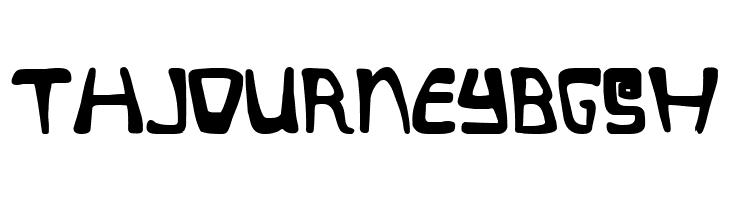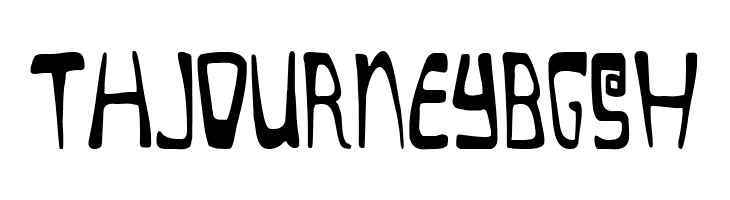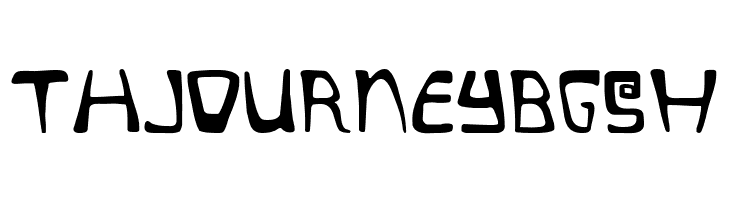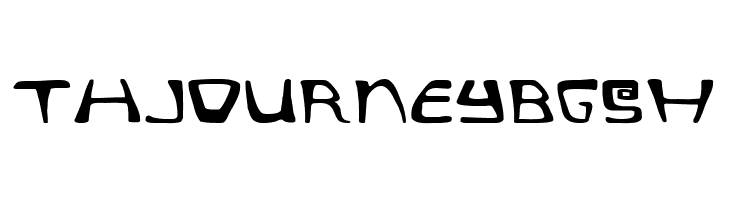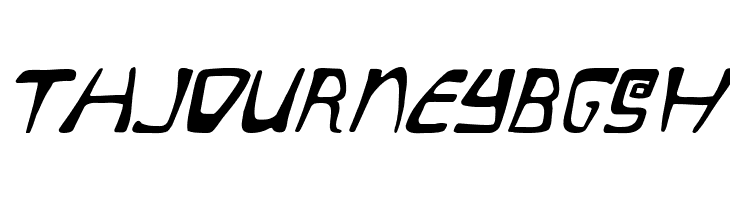
Quatl Font
A bold, artistic font with a playful, tribal aesthetic.
Quatl Expanded Font
A bold, artistic font with a hand-drawn, modern style and expanded width.
Quatl Condensed Font
An artistic, hand-drawn condensed font with a whimsical style.
Quatl Bold Font
A bold, playful font with an organic, hand-drawn style.
Quatl Italic Font
A dynamic italic font with bold, slanted characters and a modern flair.